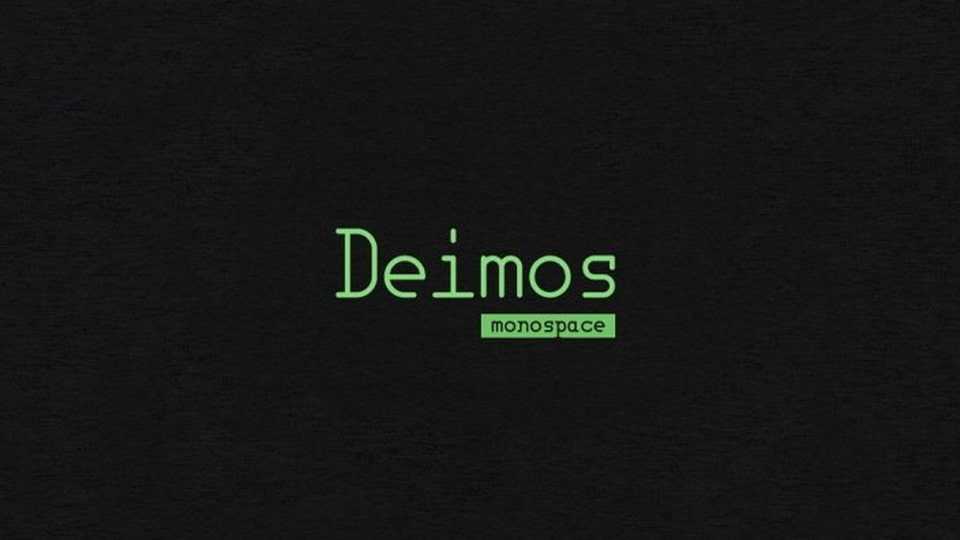
Download Deimos font, a slab serif typeface inspired by old computer terminals, classic monospace fonts, and the dark corners of space. Deimos font was named after the smaller moon of Mars.
Designer: Matt Cole Wilson